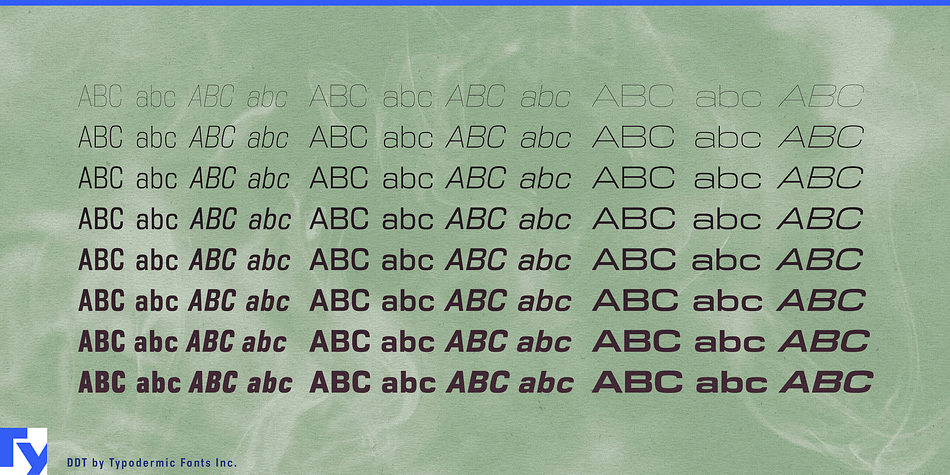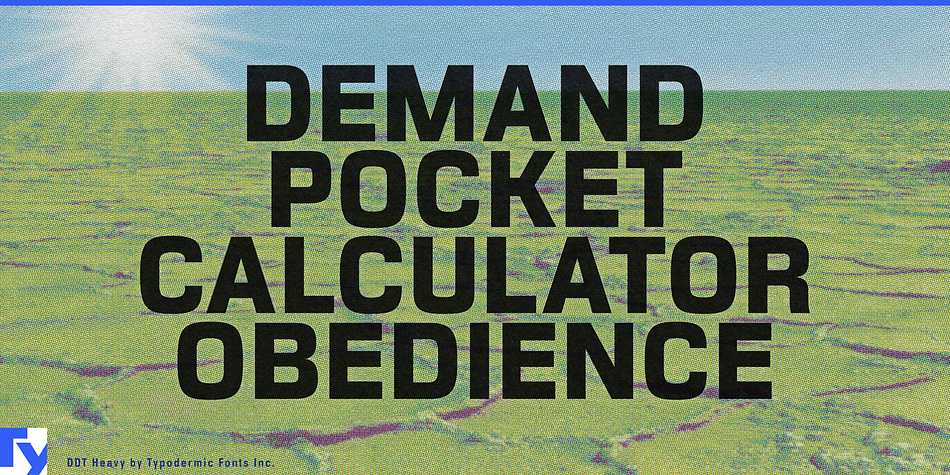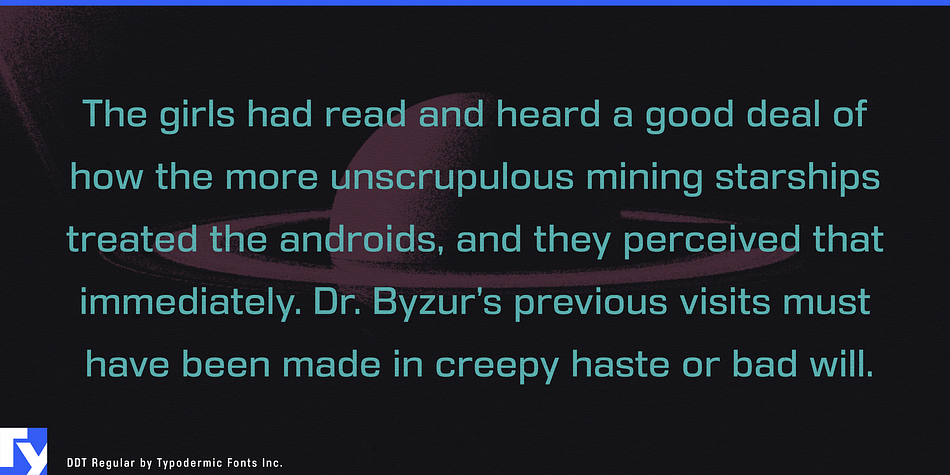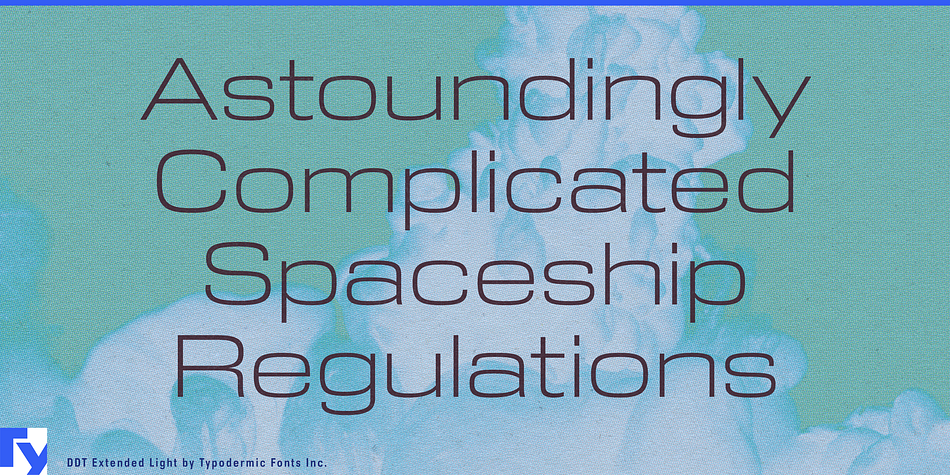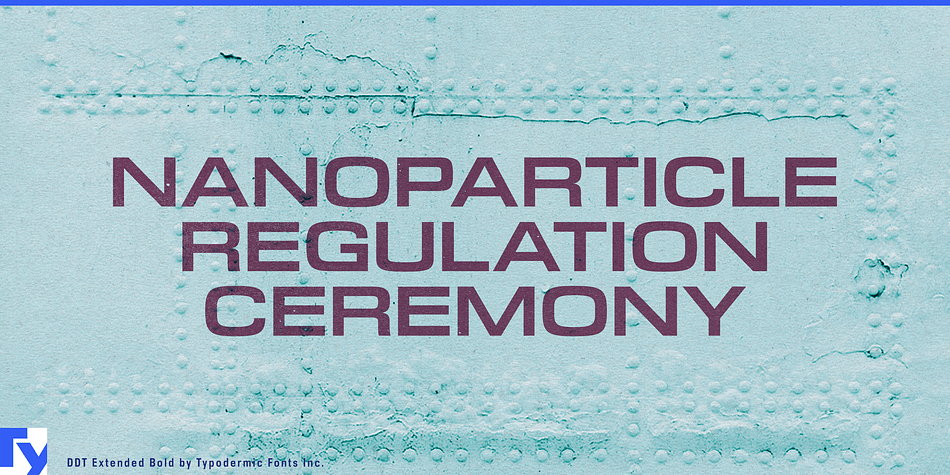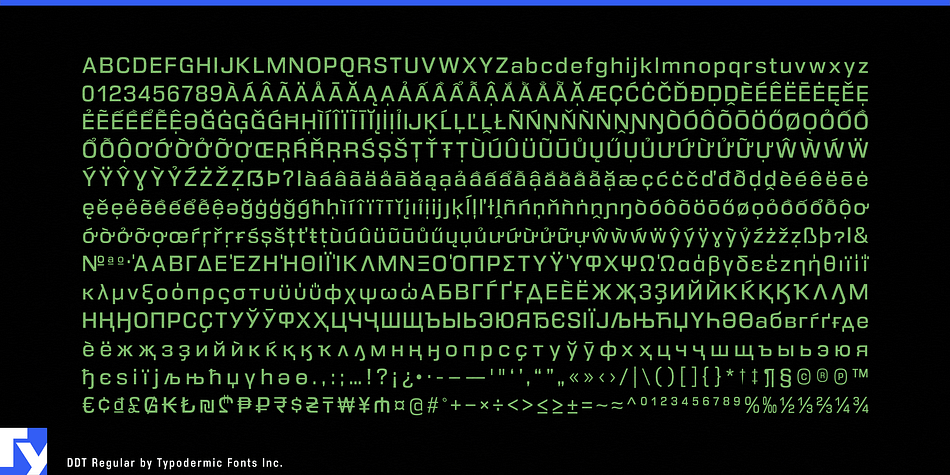
DDT is a sans serif font family. This typeface has forty-eight styles and was published by Typodermic Fonts Inc.
DDT is a subtly superelliptical, neutral-sans typeface. While it there’s an aspect of squareness to it, the roundness has been fine tuned to provide maximum clarity. More square than Univers but less square than Microgramma, DDT works as a titling font but can also serve up a paragraph of text with ease. DDT comes with three types of OpenType accessible numerals: monospaced lining, proportional lining and proportional lowercase (old-style). The full DDT family includes 3 widths, 7 weights plus obliques.